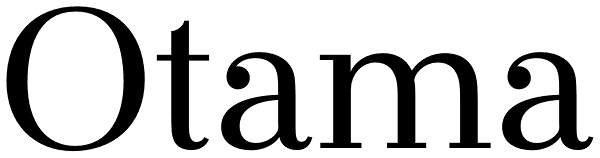
Otama
From the dainty light weight through to the striking UltraBold, Otama raises the bar to a new level of dangerous sophistication. Although easily classified alongside Modern typefaces such as Didot and Bodoni, Otama was purposely developed with...